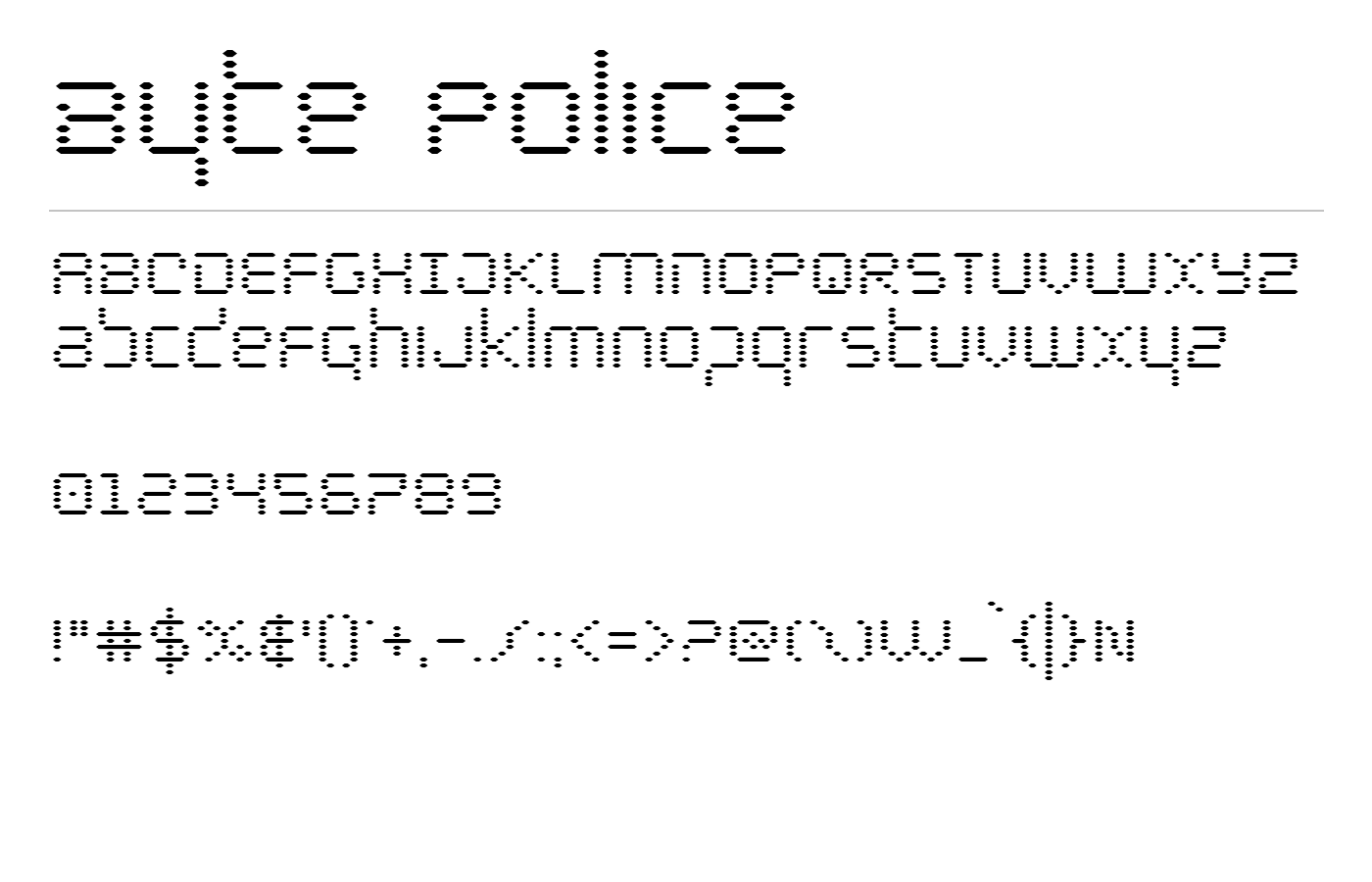
Byte Police is a unique, futuristic sans serif font characterized by its dotted, pixel-like construction that evokes digital technology and retro computer displays. With its monospaced and geometric letterforms, Byte Police conveys a minimalist yet technical feel, making it perfect for tech, gaming, or sci-fi themed designs that want a modern and digital vibe. This font works well for headlines, logos, and interfaces where a distinct electronic or cyber aesthetic is desired.
Byte Police Font